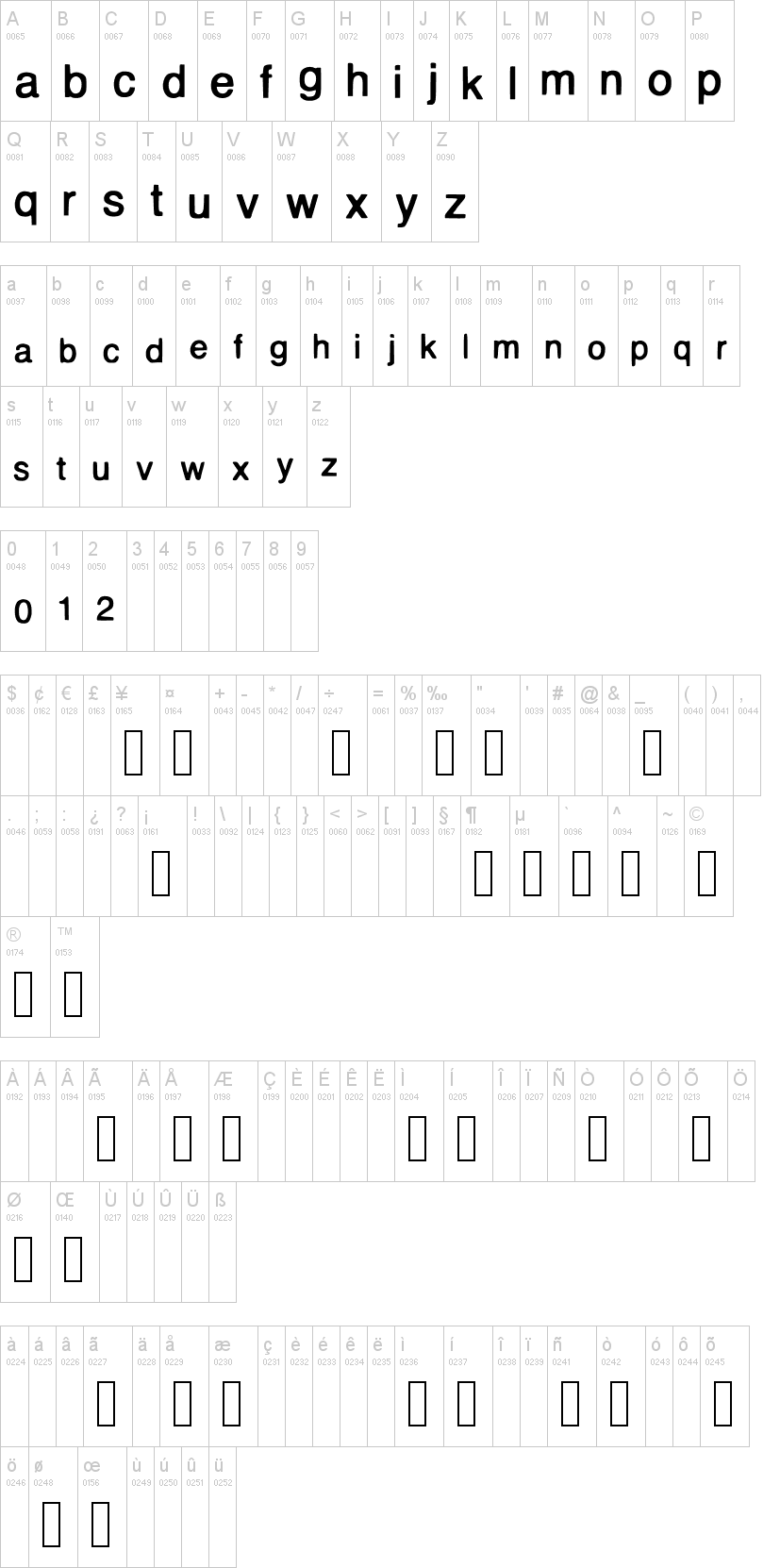
Note of the authorA distorted lower-caps sans-serif font. For Personal Use Only! If you would like to use this font For commercial Use, please contact Me at M_SpikeWalker@hotmail.com